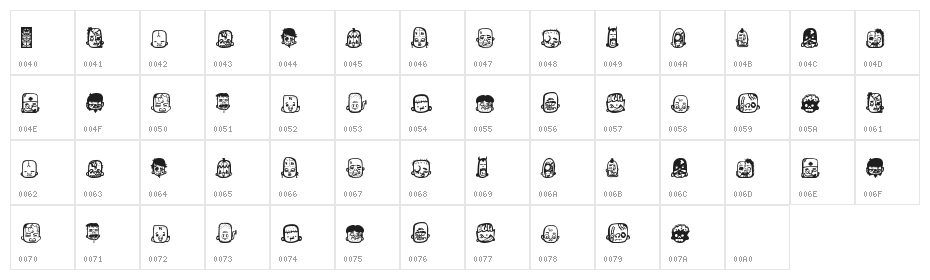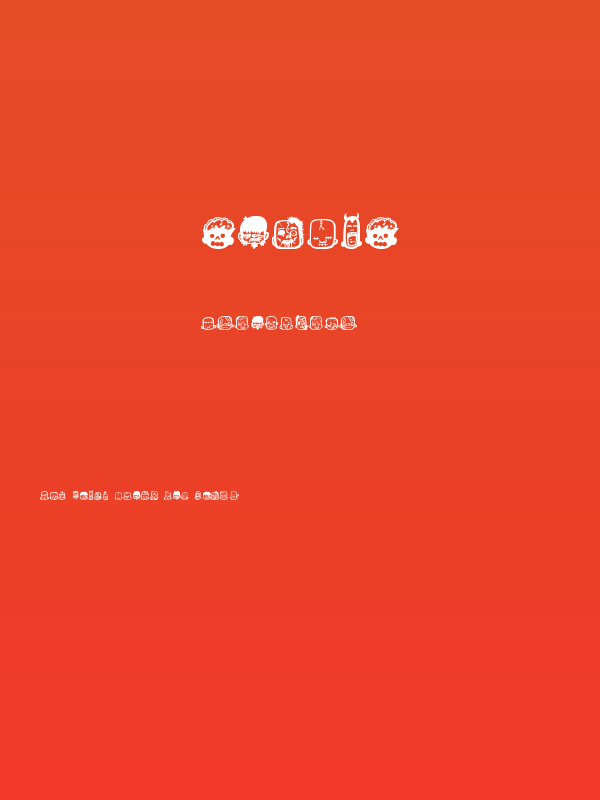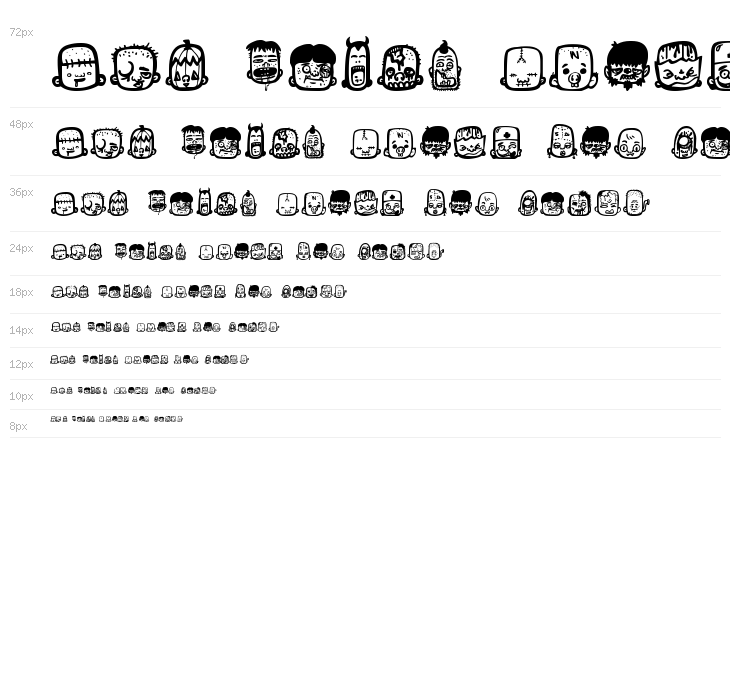
zombiz Font
zombiz Description
This is a highly decorative and playful font featuring cartoonish zombie characters. Each letter and number is represented by a unique zombie face, adding a whimsical and spooky touch. The characters are bold and have a hand-drawn style, with exaggerated features and expressions that make them stand out. This font is perfect for Halloween-themed projects or any design that requires a fun and eerie vibe. The special characters also follow the same theme, enhancing the overall cohesive look.
| Use Case | Logos, Posters, Themed Events |
| Proposed Projects | Ideal for Halloween invitations, themed posters, children's books, and novelty items. |